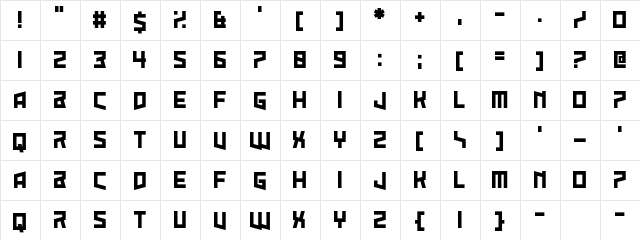
Sunk Foal Brother Regular
| Designer | NAL |
Design Context for Sunk Foal Brother Typeface
Sunk Foal Brother is a composed and adaptable typeface that performs quietly and consistently across a wide range of design contexts.